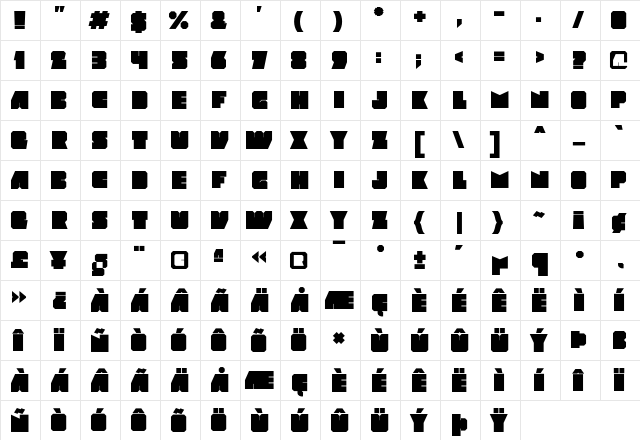
Mod Regular
| Designer | Svetoslav Simov |
Design Context for Mod Typeface
Mod is a composed and adaptable typeface that performs quietly and consistently across a wide range of design contexts.